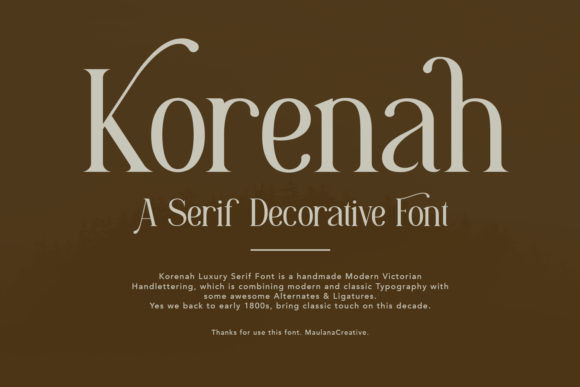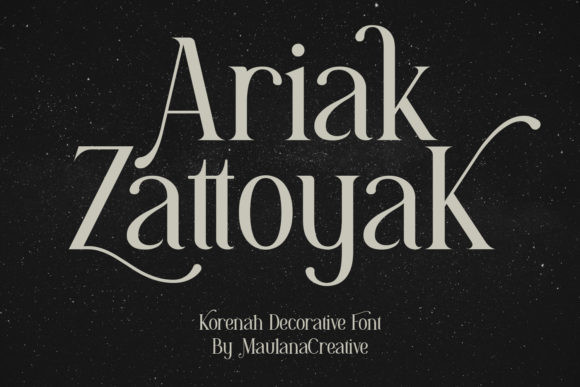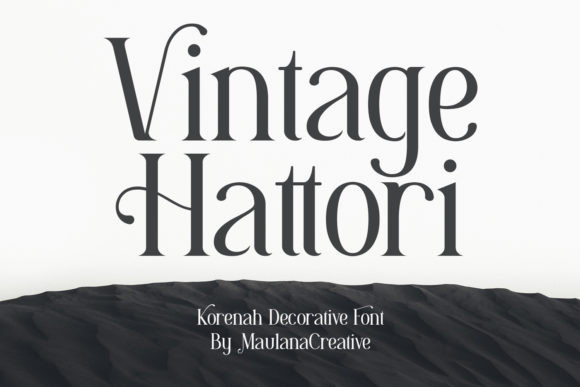
Korenah Font
Korenah is an elegant and fashionable serif font. It is defined by smooth curves and is perfect for fashion branding or editorial designs. Add it confidently to your projects, and you won’t be disappointed.